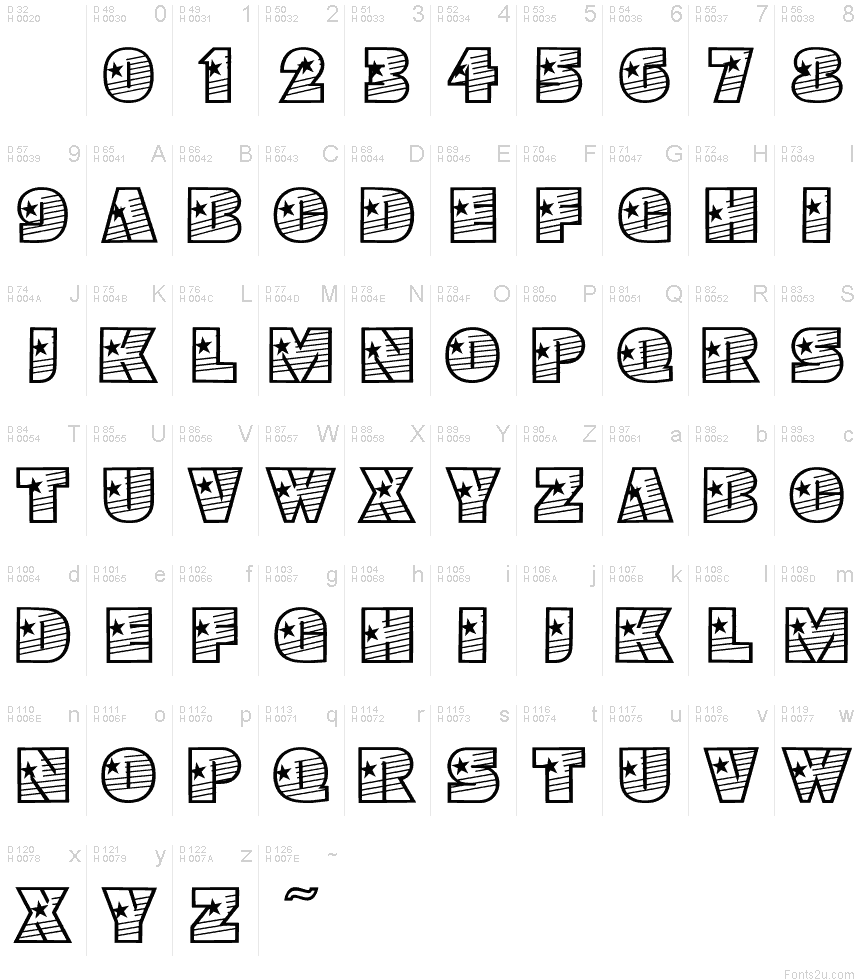
Prima
Prima is a free star-spangled display font with bold block letters cut by striped fills and a single star punched into each form. The letters feel poster-minded and a little patriotic, with broad, geometric silhouettes carrying the motif rather than fussy detail.
It fits naturally in event flyers, parade posters, party invites, retro signage, and cover lines where a few words need that flag-like rhythm. As a free font, Prima also suits title cards, badge graphics, and short monograms, because the repeated star-and-stripe treatment gives even simple initials a built-in emblem feel.
Starman: Prima: 1997